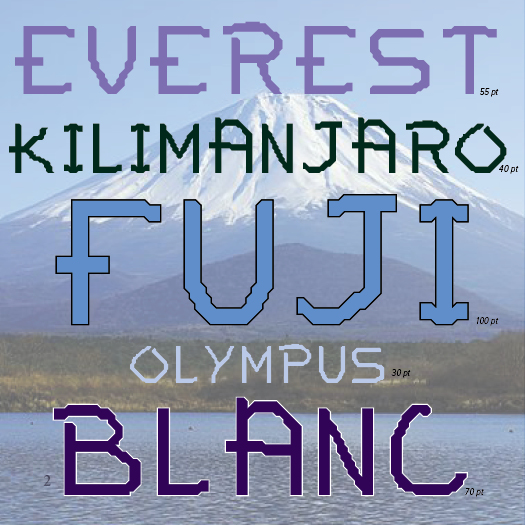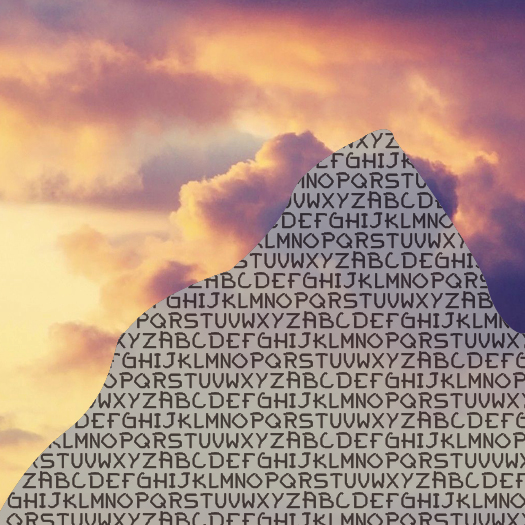
• Based on the author's own handwriting mixed with the ruggedness associated with a mountain, this font combines both of those into one to create a perfectly rocky font that contains both sturdiness and the unexpected that comes with a mountain range.
You captured the look of well used paths ontracks used for mountainbiking; you managed to translate the rockyness and occasional unpredictable surface into glyphs with a message. The mountain of letters made me smile :)